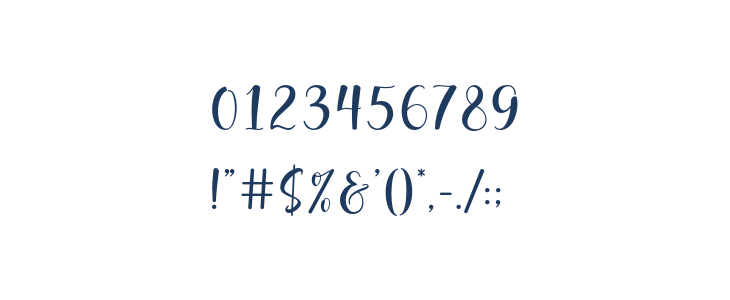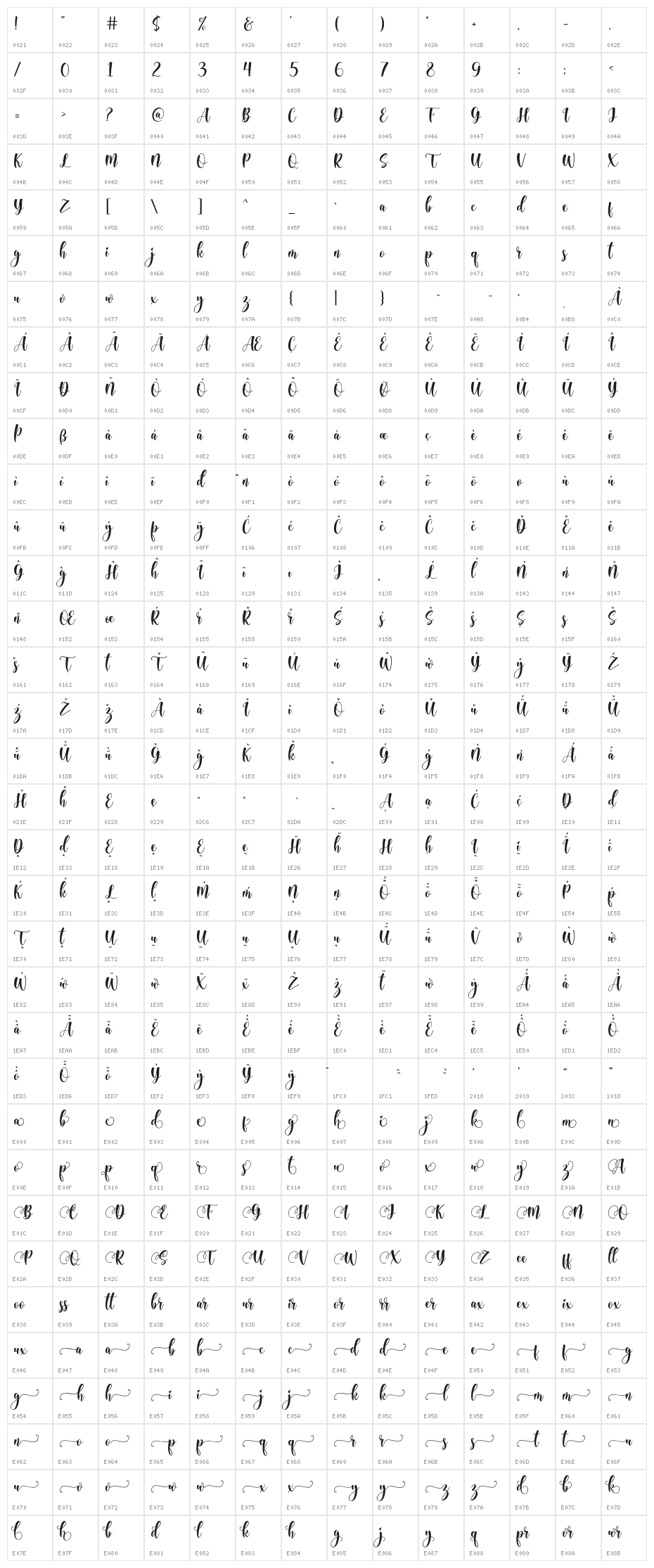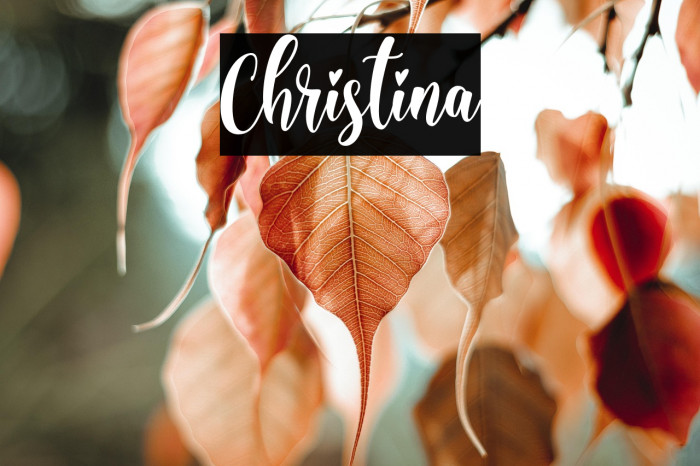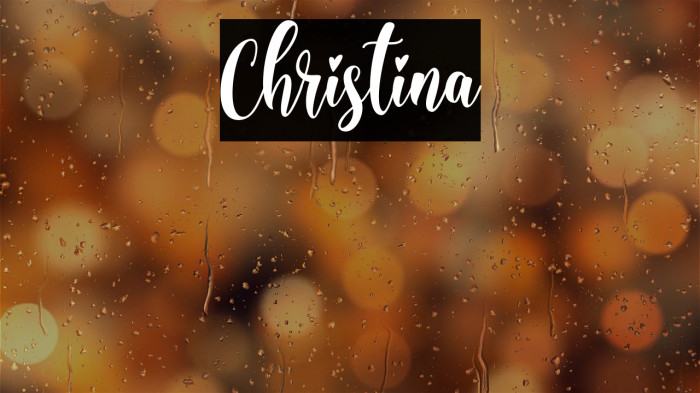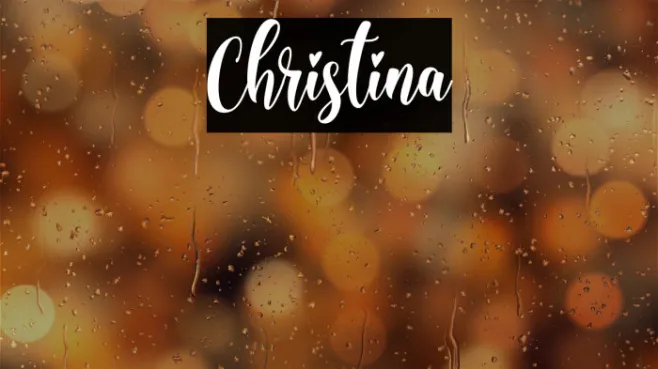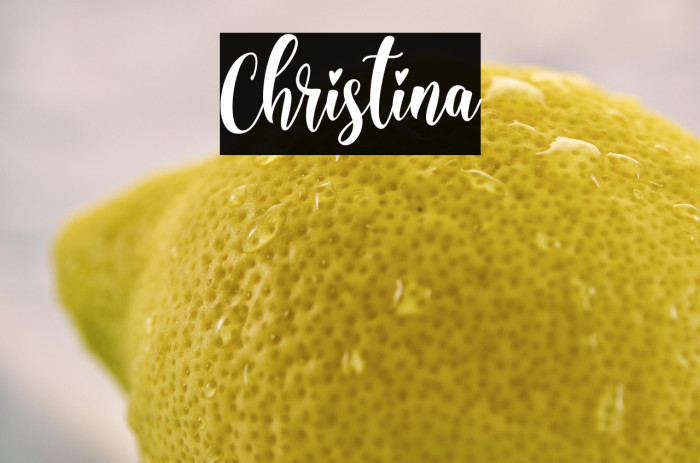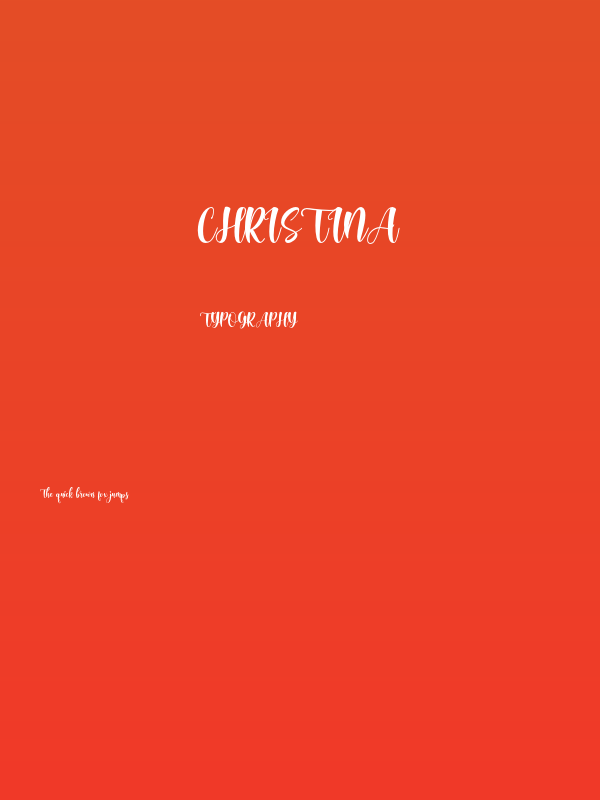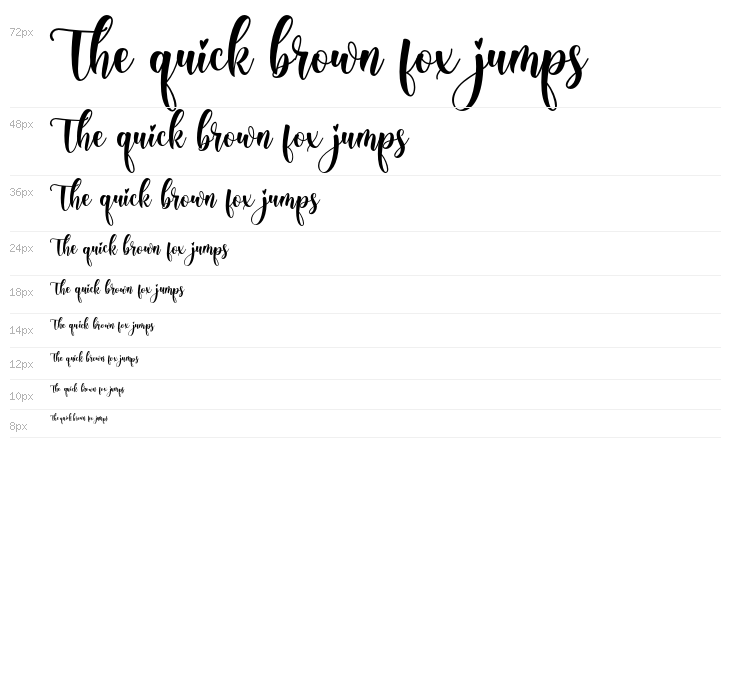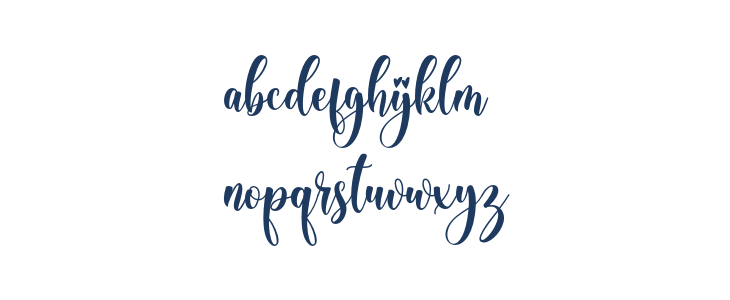
Christina Font
Christina Description
This font features an elegant and flowing script style, characterized by its smooth, cursive letterforms. The uppercase letters are bold and sweeping, with intricate loops and flourishes that give a sense of movement and grace. The lowercase letters maintain a consistent style, with a slightly more restrained design that complements the uppercase. The numerals are clear and legible, maintaining the same fluidity as the letters. Special characters are designed with similar attention to detail, ensuring a cohesive look across all glyphs. This font is perfect for projects that require a touch of sophistication and elegance.